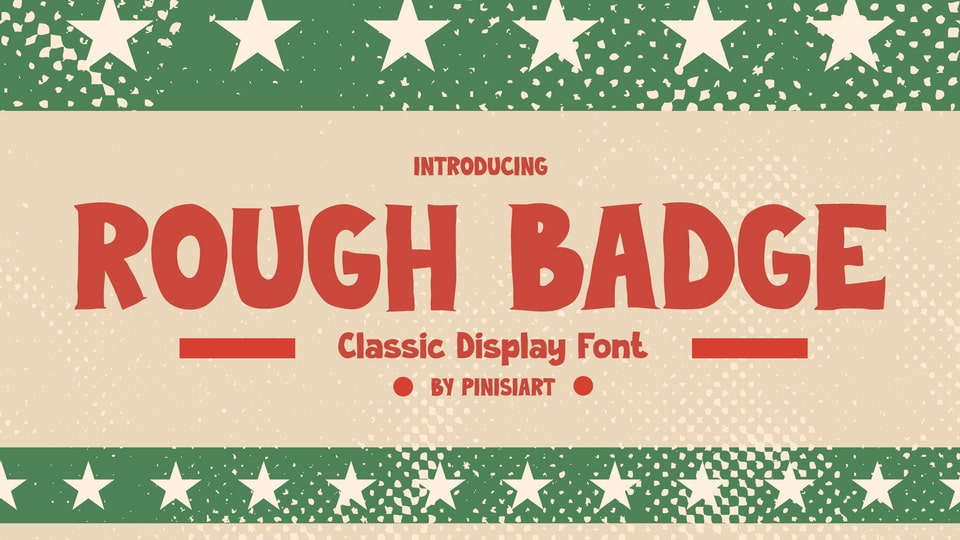
Download Rough Badge font, a classic display typeface. Suit perfectly for vintage themes designs, retro poster, stationary, school supplies, Youtube covers, Youtube thumbnails, social media page covers and so on…